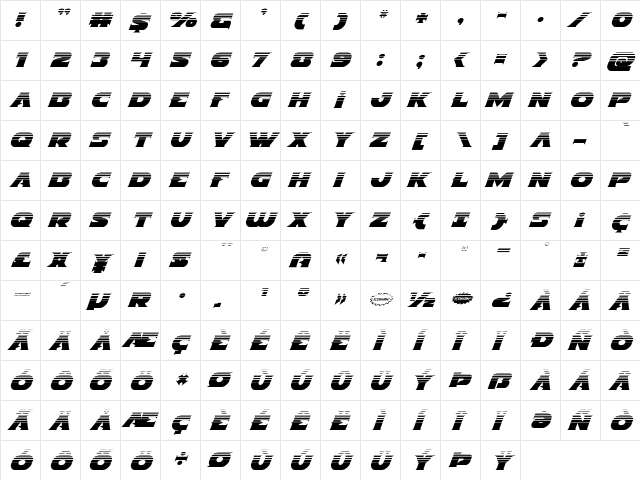
Indigo Demon Halftone Italic Italic
Design Context for Indigo Demon Halftone Italic Typeface
Indigo Demon Halftone Italic is a composed and adaptable typeface that performs quietly and consistently across a wide range of design contexts. The dynamic lean of this cut emphasises speed and emphasis in any layout.
Pro Tip: Try Indigo Demon Halftone Italic for annotation and caption copy alongside an upright companion — the contrast in angle creates a dynamic but ordered typographic system.